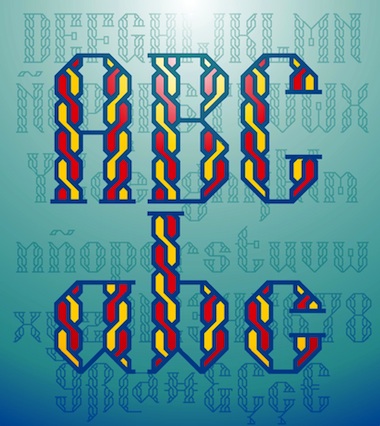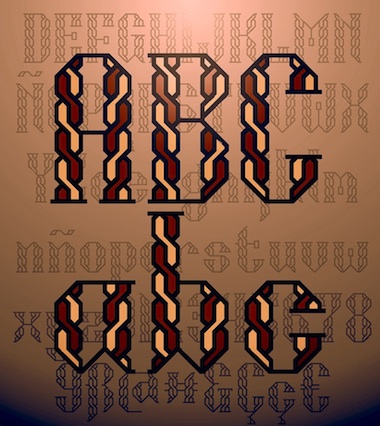
Thank you very much, maestro. It's just a summer fun, nothing comparable with your majestic and intricate fonts and alphabets!... I hesitated to choose this other possibility, what do you think about it?
I think it's more... heavy...
Your twisted yarn design is most attractive. I'll download and start playing with colour fill and making patterns with those letters. Thanks for all those very useful special characters! I can imagine how much work goes in...
The b-w design you show is equally attractive, looks like links of a chain to me. I'll download that when/if you publish it.
Well, this other version with overlapping hexagons is also beautiful. Nothing prevents you to have two flavors of the same theme. Both look delicate at small size.
Normally, each glyph is a battle between order and chaos...It's a fight that I like (and make fonts for all the people who gonna use them in their great new works... Wow!). Really, it's a pleasure, thanks. You too?
Does anybody else think that the two vertical pillars of the A look like the door the the Mines of Moria from Lord of the Rings? Looks great, about to download.
There was an old school kung fu flick that showed a student that couldn't get into the Shaolin Temple to train with all of the monks, but instead did his work continuously among them and found that he had masterful skills he didn't even know about. It totally reminds me of you, one of the humblest of all fontstructors. Love this one. (reminds me of a logo of mine)
@Legoandsprit: Thanks, LOTR is one of my beloved book for years (and also for my kids). Something of it must be exist in some of my works, I hope.
I think it's more... heavy...
The b-w design you show is equally attractive, looks like links of a chain to me. I'll download that when/if you publish it.